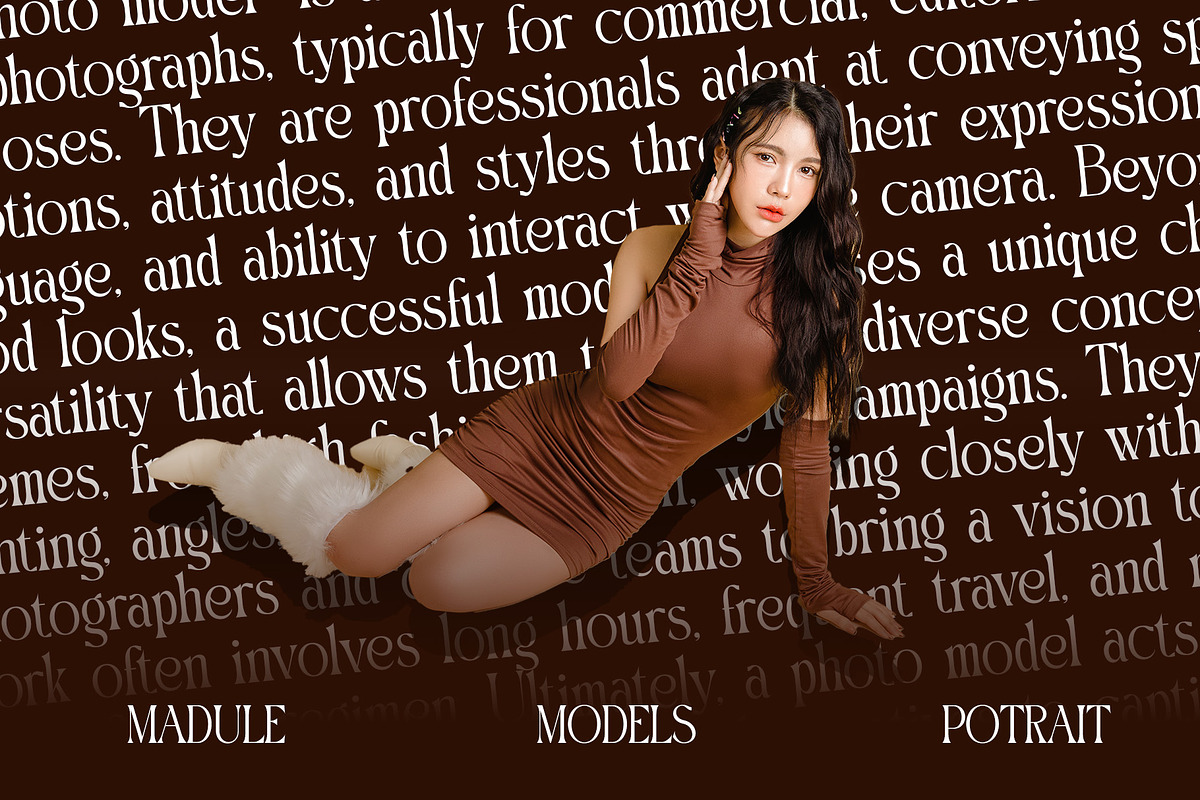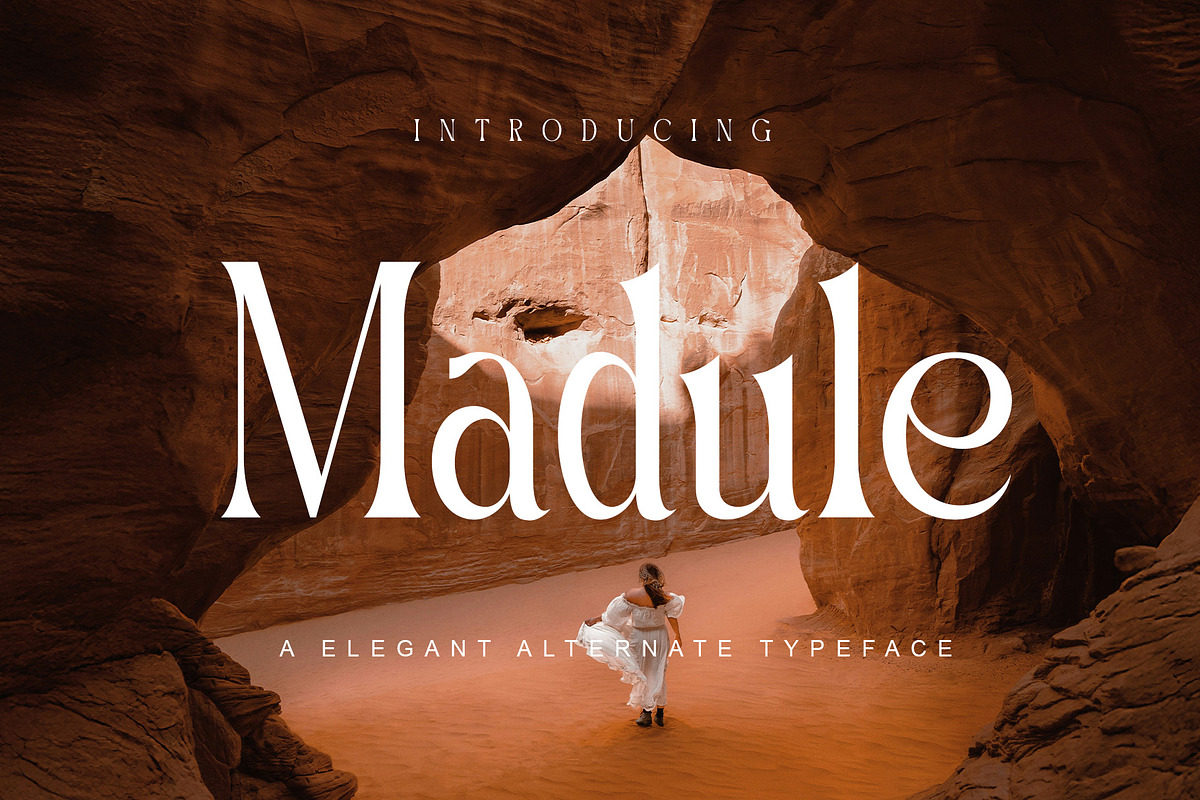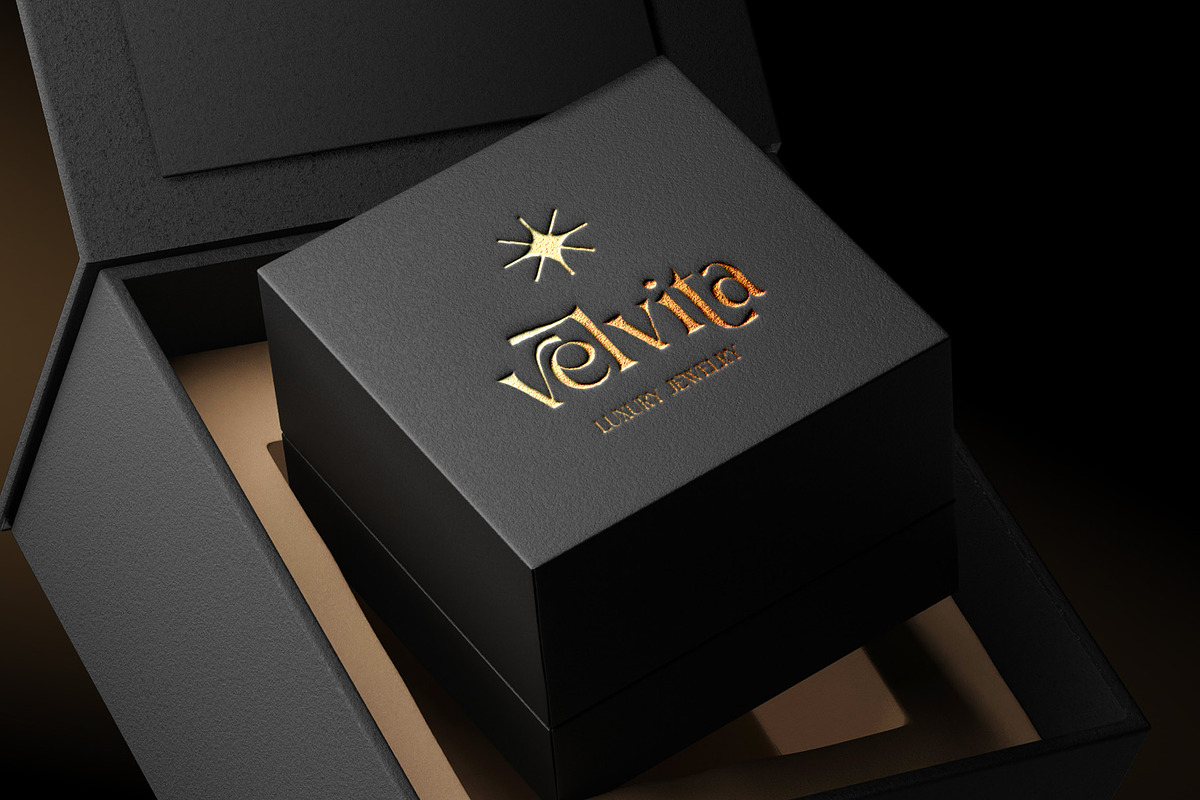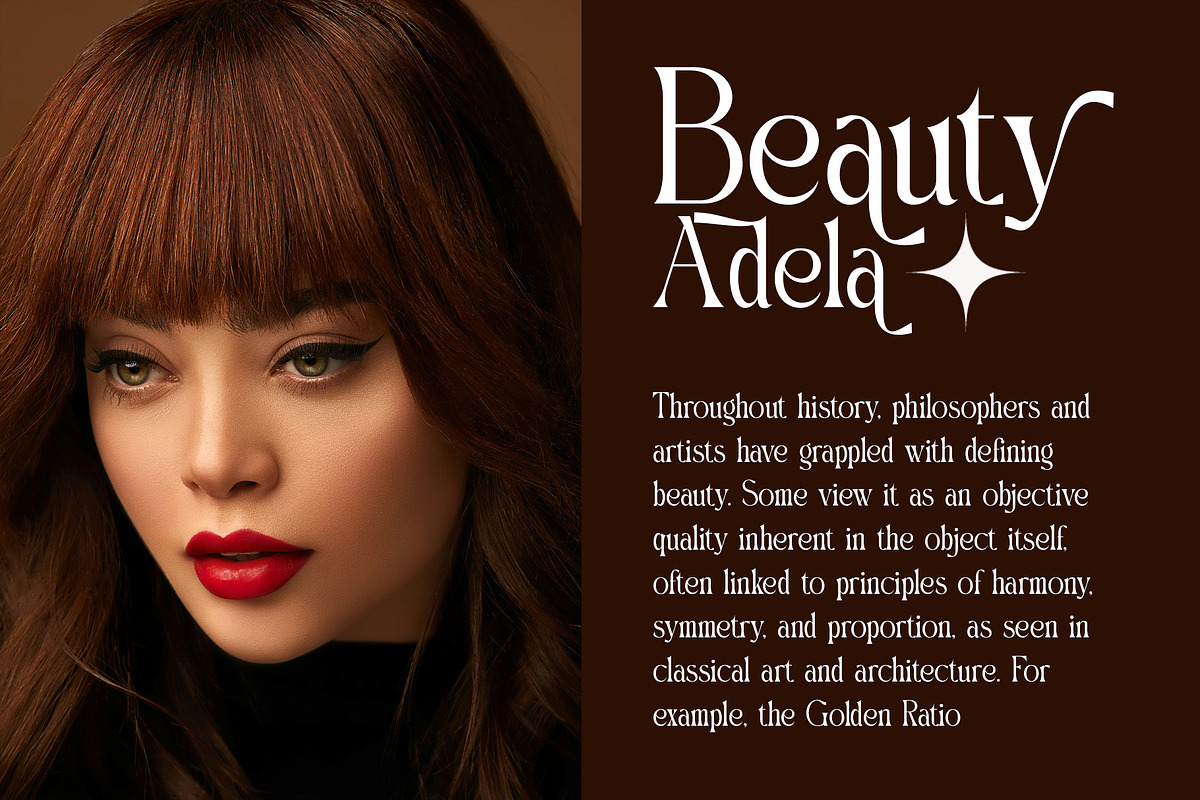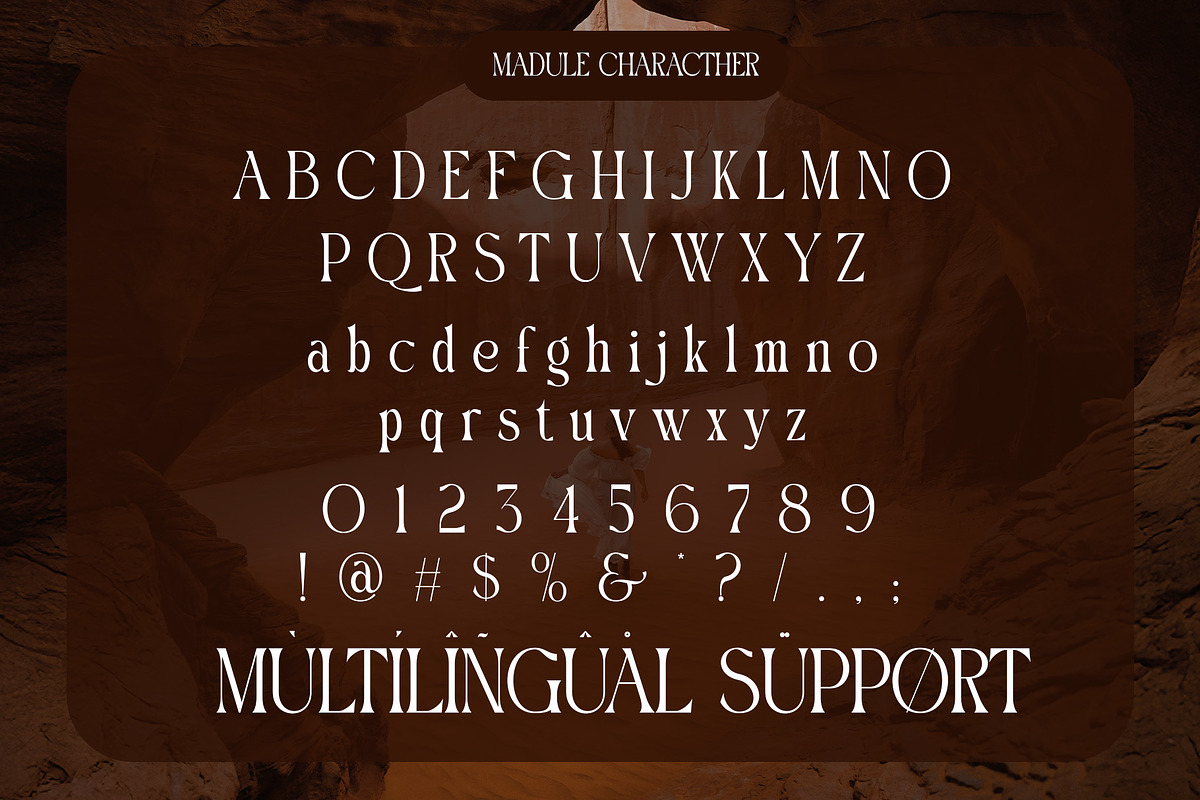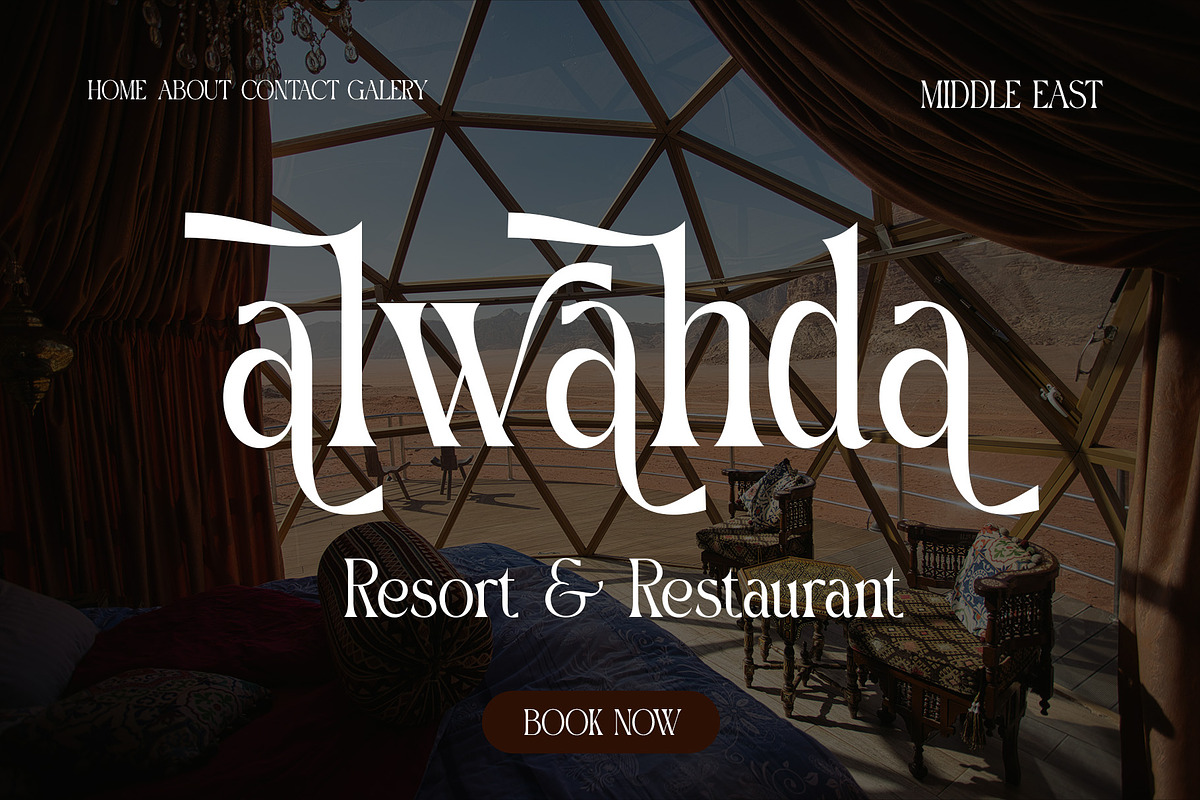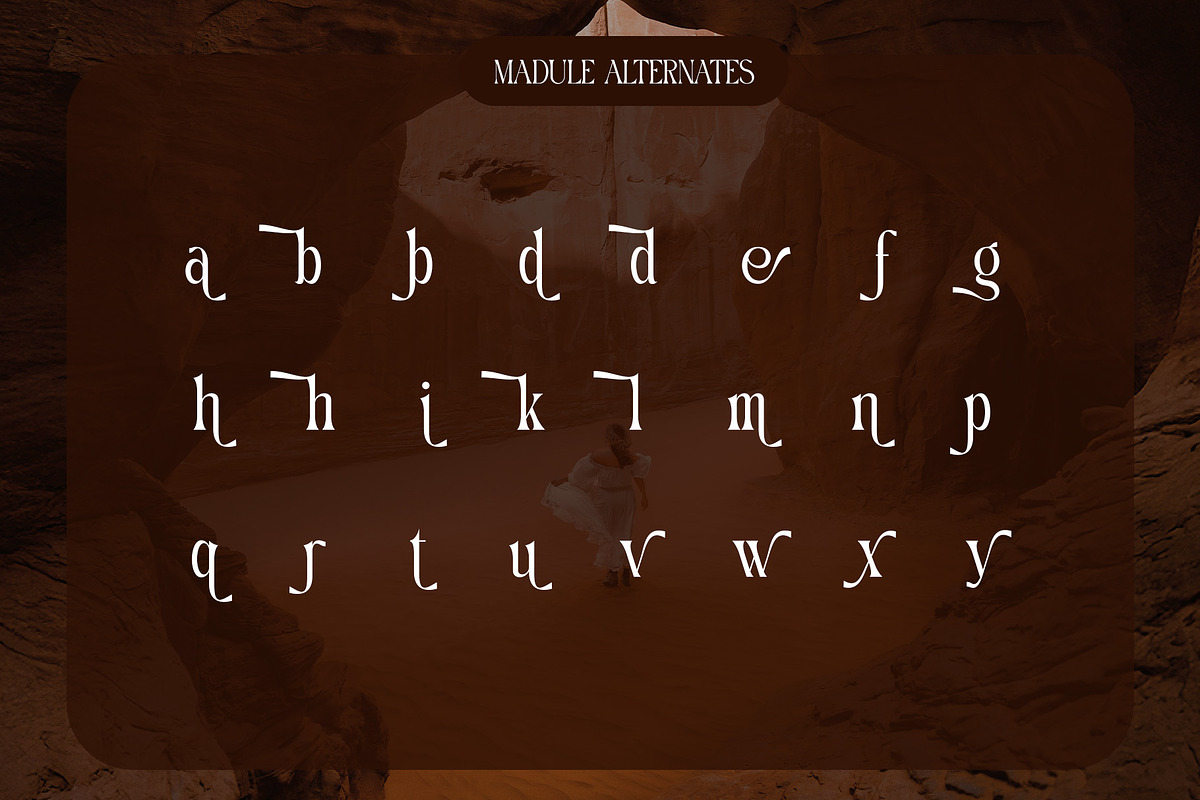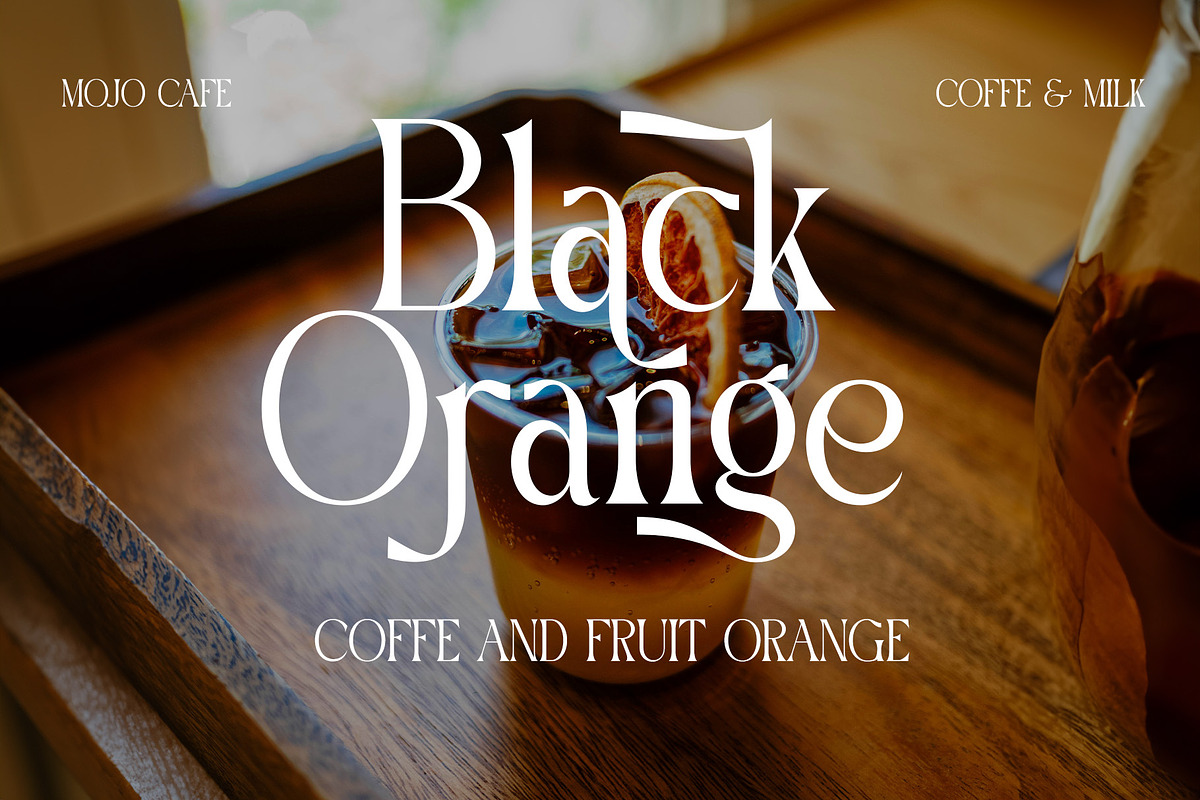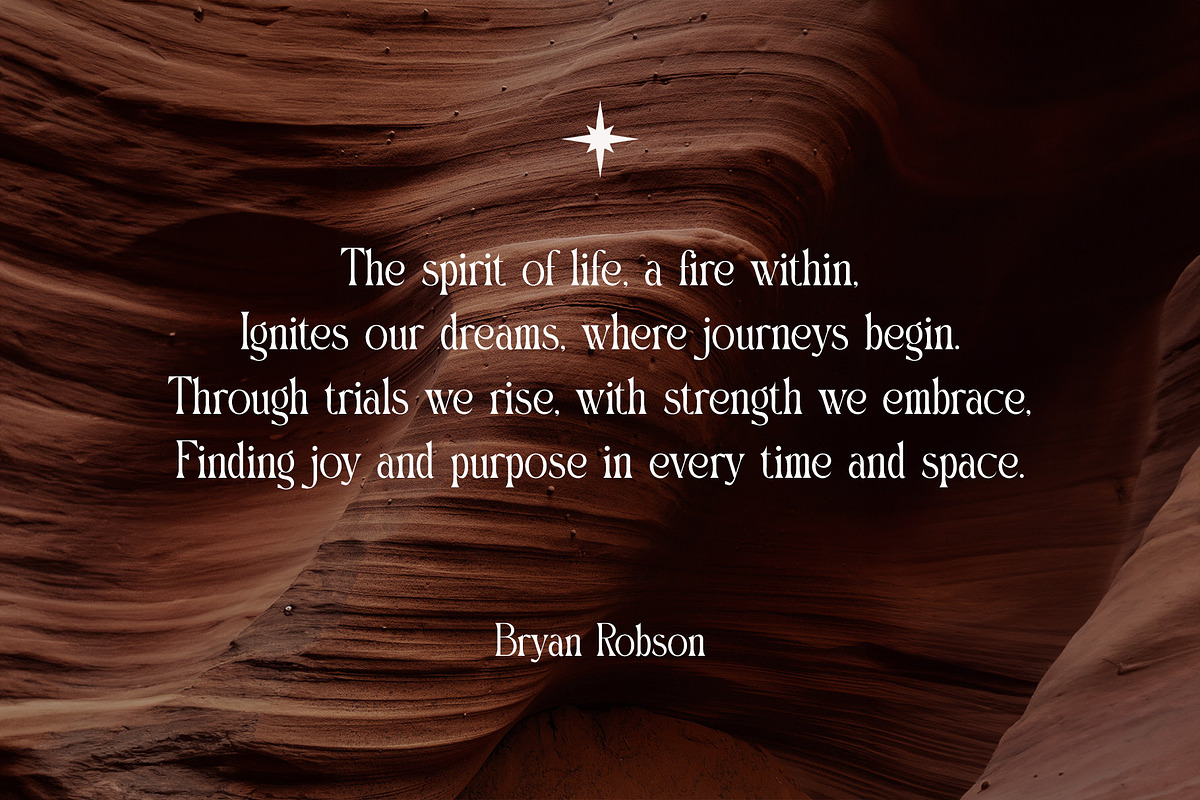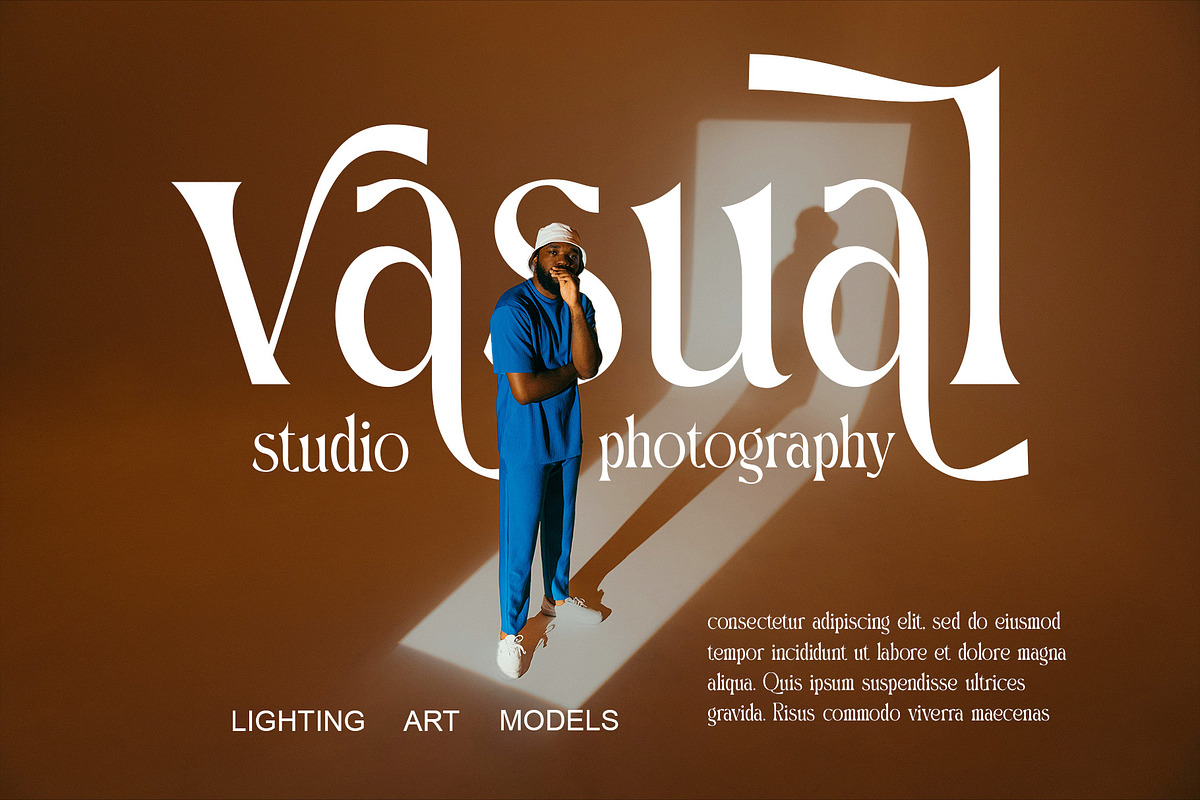
Madule Modern Elegant Serif
Madule is a refined serif typeface that blends timeless elegance with modern versatility. Designed with clean lines, graceful curves, and a balanced structure, Madule offers a distinctive look that elevates any visual composition. Its carefully crafted alternate characters provide stylish variations, allowing for greater creative flexibility and unique typographic expressions.
Each letterform in Madule is built with attention to detail, resulting in a typeface that is both readable and aesthetically strong. Whether used in headlines or shorter text blocks, the alternate styles add personality and a bespoke feel to your designs.
Branding & Logo Design – Strong, elegant presence for high-end or creative brands.
Editorial & Magazine Layouts – Ideal for headlines, subheadings, and feature spreads with a refined visual tone.
Packaging Design – Enhances premium product lines, such as fashion, cosmetics, or gourmet goods.
Invitations & Stationery – Offers an artistic, personal touch for wedding suites and event materials.
Social Media & Digital Graphics – Eye-catching and polished for quotes, promotions, or announcements.
Madule is the perfect choice for designers seeking a serif typeface that combines classic beauty with modern adaptability. With its elegant alternates and strong character, it’s well-suited for projects that require a sophisticated, artistic, and editorial flair.